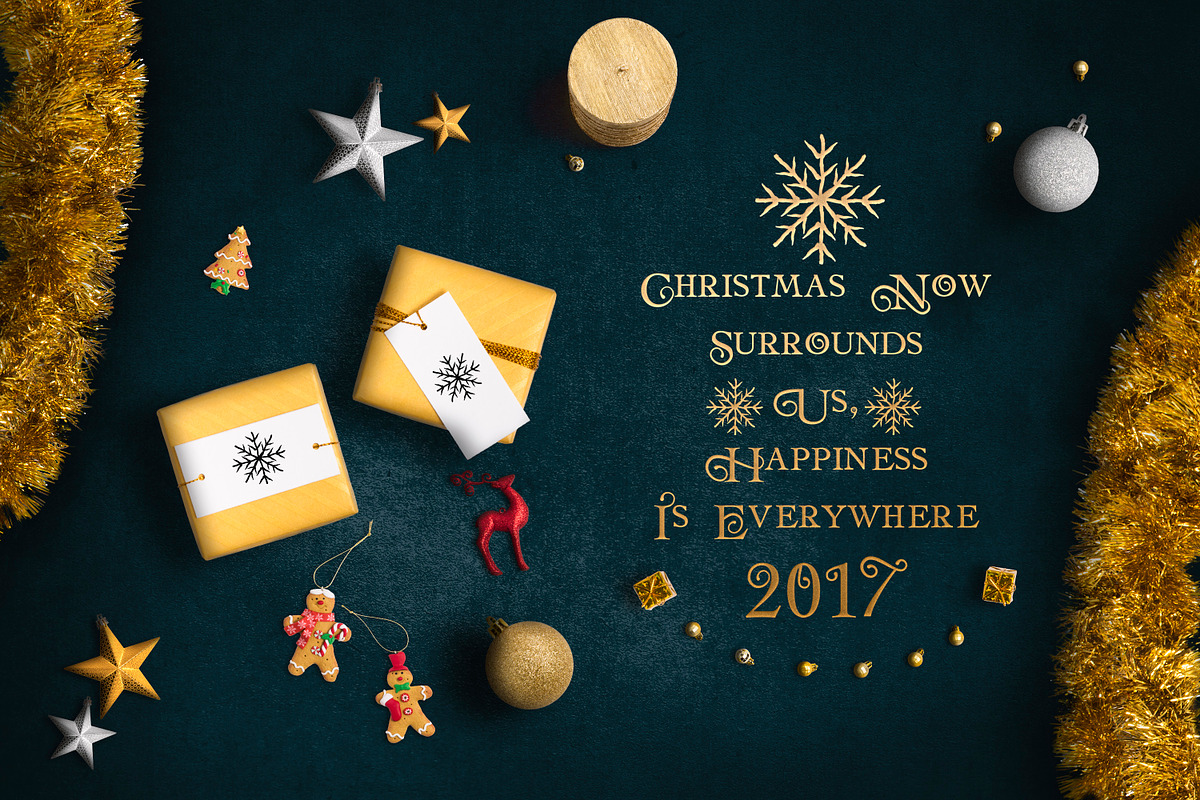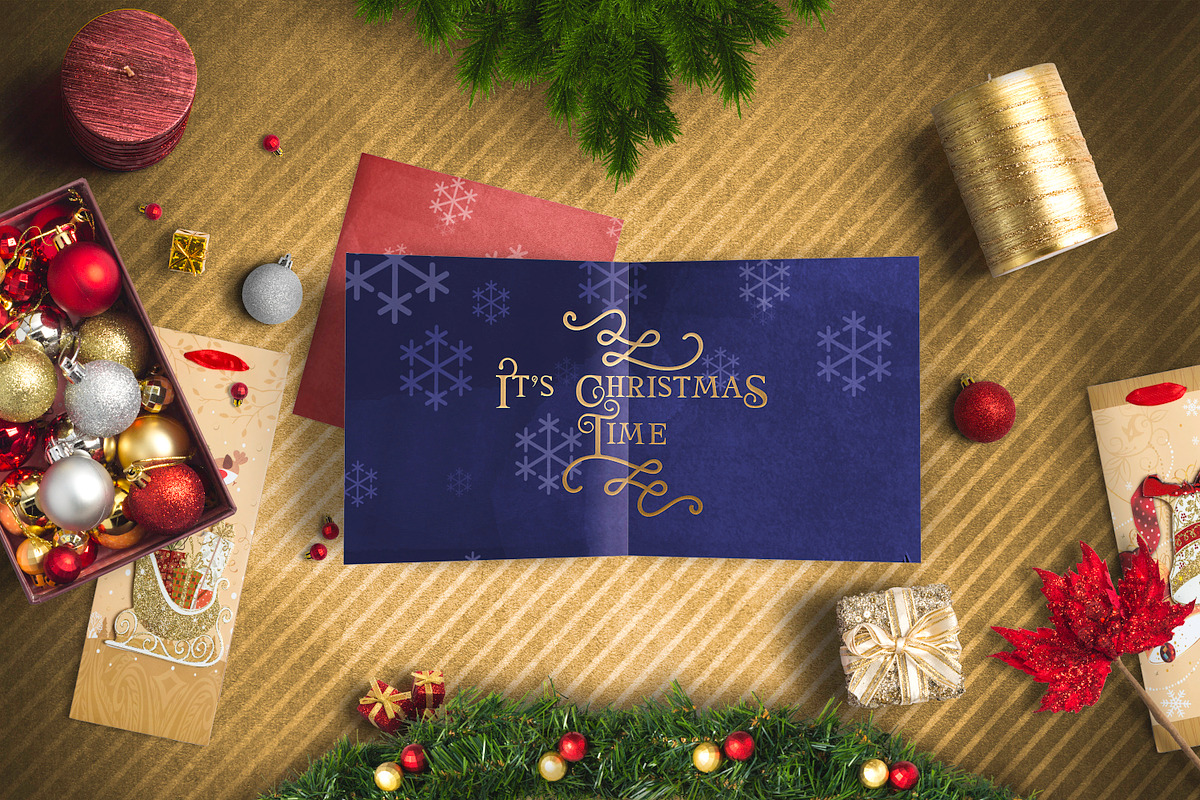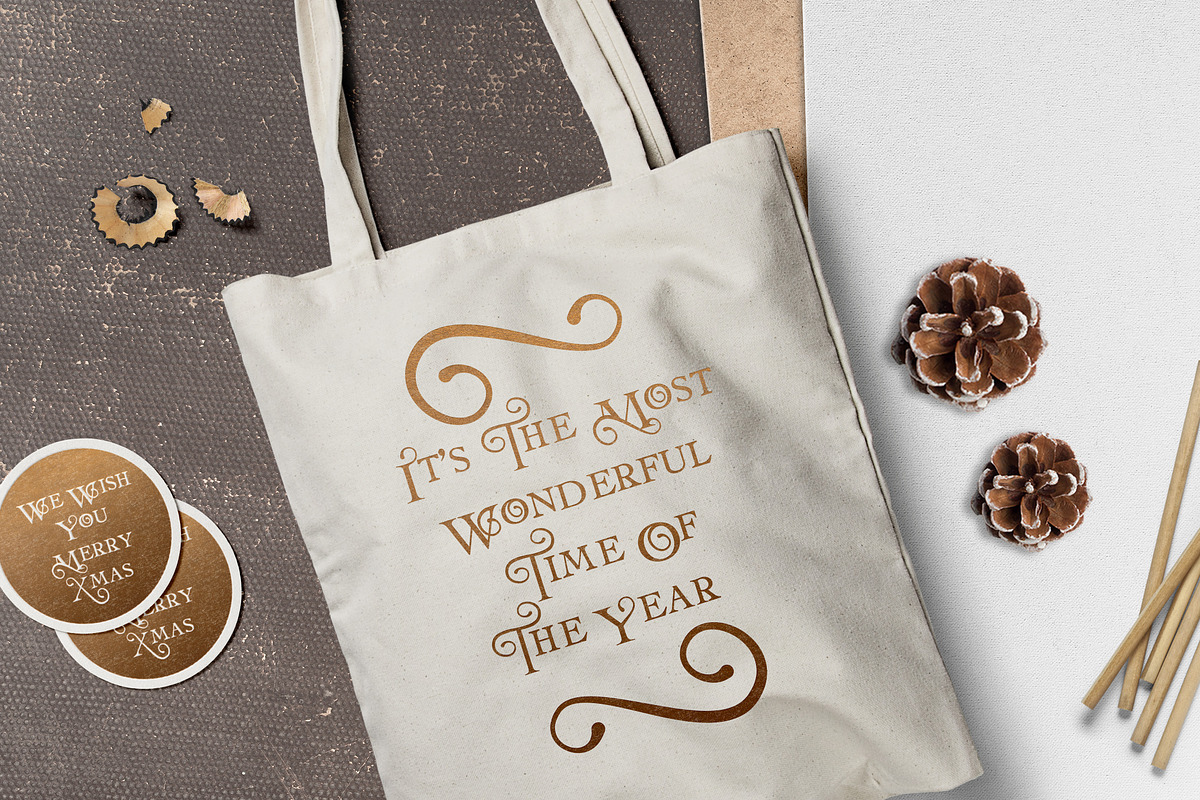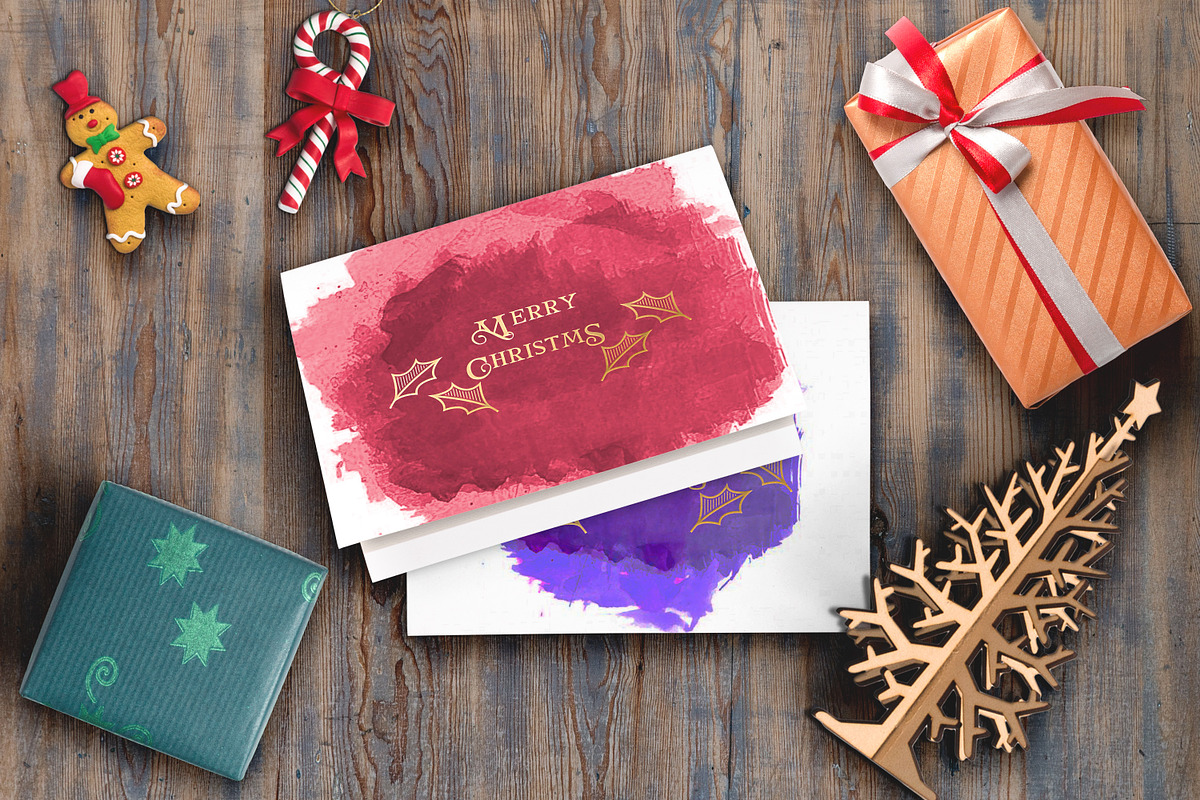
Natale Christmas Font & Bonus Gift
Natale Christmas Font & Bonus Gift by GraphicDash is a font selected for branding, posters, packaging, typography.
Why Natale Christmas Font & Bonus Gift is worth a look
Natale Christmas Font & Bonus Gift by GraphicDash fits naturally into Branding, posters, packaging, typography.